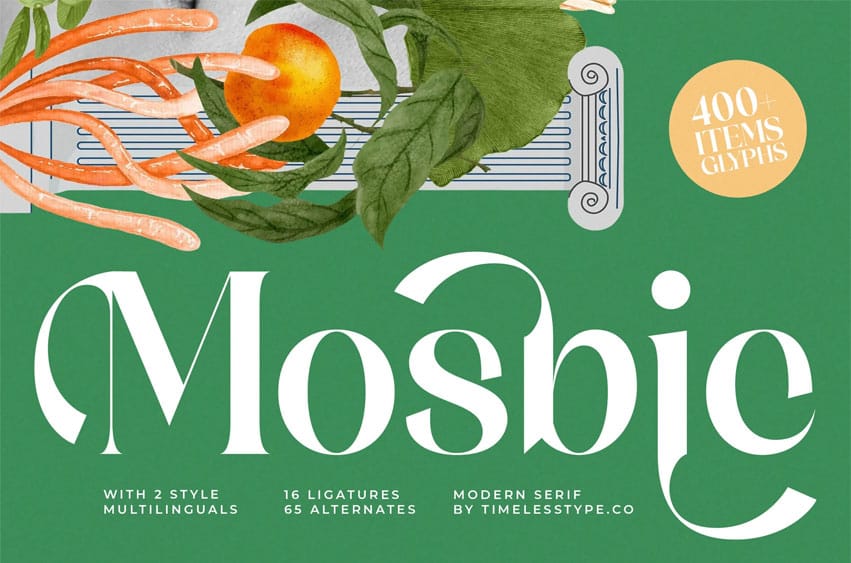
Mosbic Font is a modern serif font with bold elegance and artistic details, designed to bring timeless sophistication into your creative projects. Featuring stylish ligatures and versatile alternates, this font is perfect for branding, packaging, posters, invitations, editorial layouts, and logos.
With its refined structure and luxurious character, Mosbic is a versatile typeface suitable for both digital and print designs, adding class and creativity to every project.